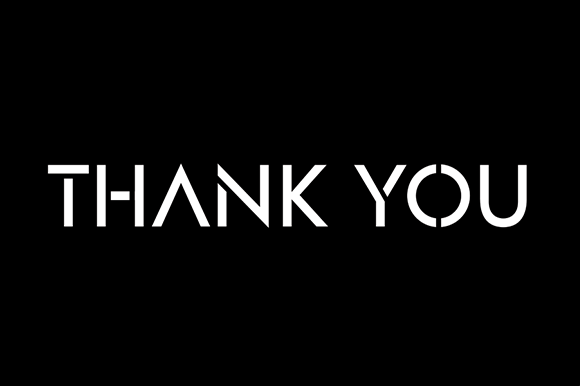
Designer Font
Designer is a simple and casual display font with an undeniably clean feel. With its neat and beautiful arrangement of letters, this typeface will look outstanding in both formal and non-formal designs.